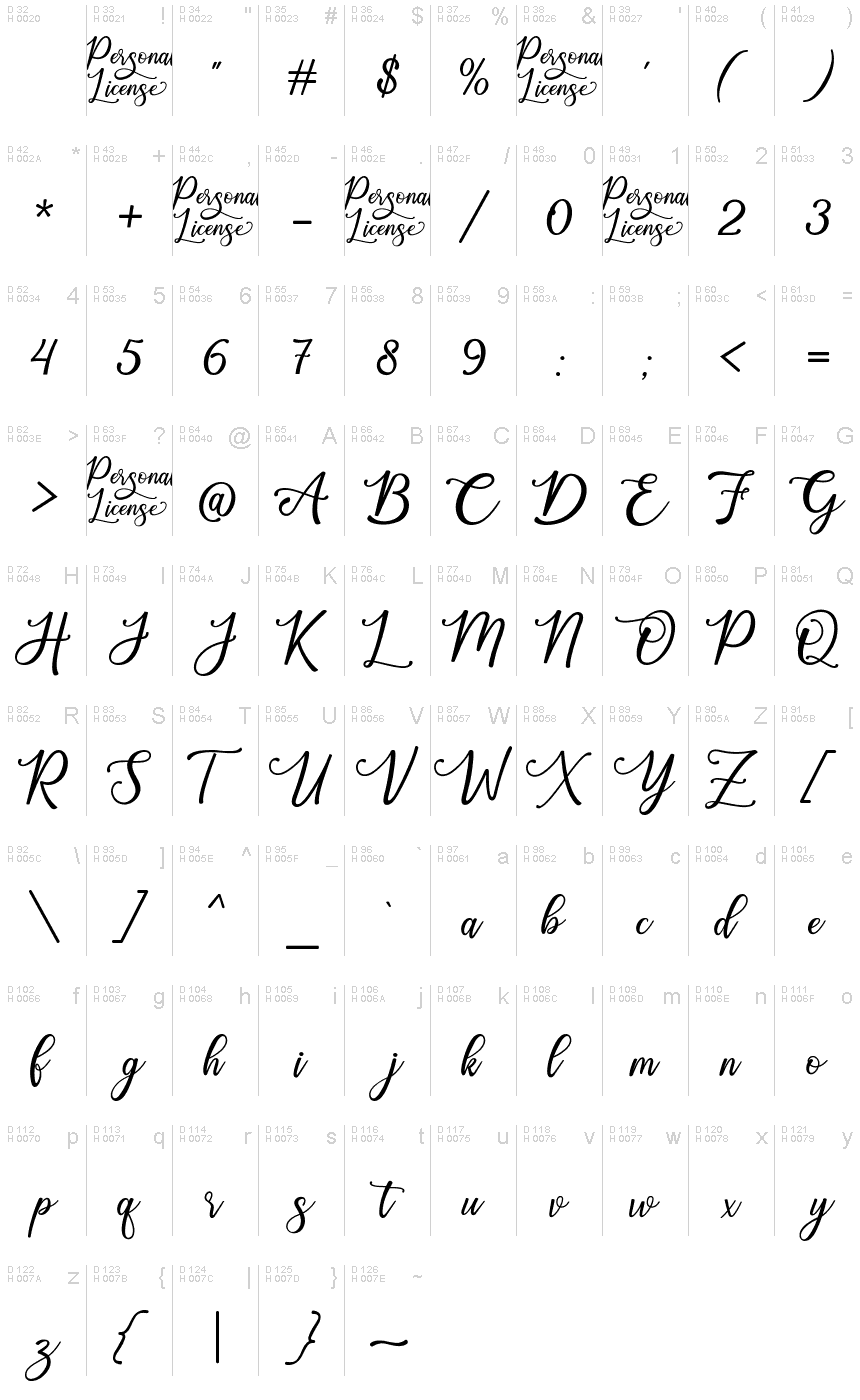
happy Birthday
Presenting Happy Birthday, a delightful calligraphy font by Java Pep. This pretty script font boasts OpenType features such as swashes, alternates, and stylistic alternates, along with support for 17 languages.
Happy Birthday is perfect for a range of projects, including greeting cards that need an elegant touch, logotypes that demand a stylish look, wedding invitations that require a romantic feel, and even signature marks that crave sophistication. With its extensive OpenType features like alternates and swashes, this font ensures endless creative possibilities.